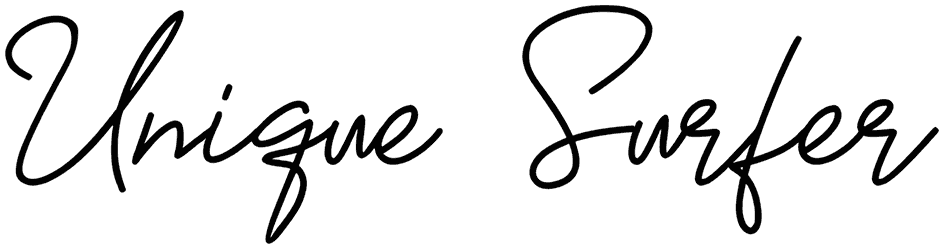
Unique Surfer Font
Unique Surfer is the best monoline-style script font for making great projects. This handwritten font has a broad range of potential applications, ranging from printed materials to digital applications such as lettering…
Unique Surfer is the best monoline-style script font for making great projects. This handwritten font has a broad range of potential applications, ranging from printed materials to digital applications such as lettering and invitation card design.